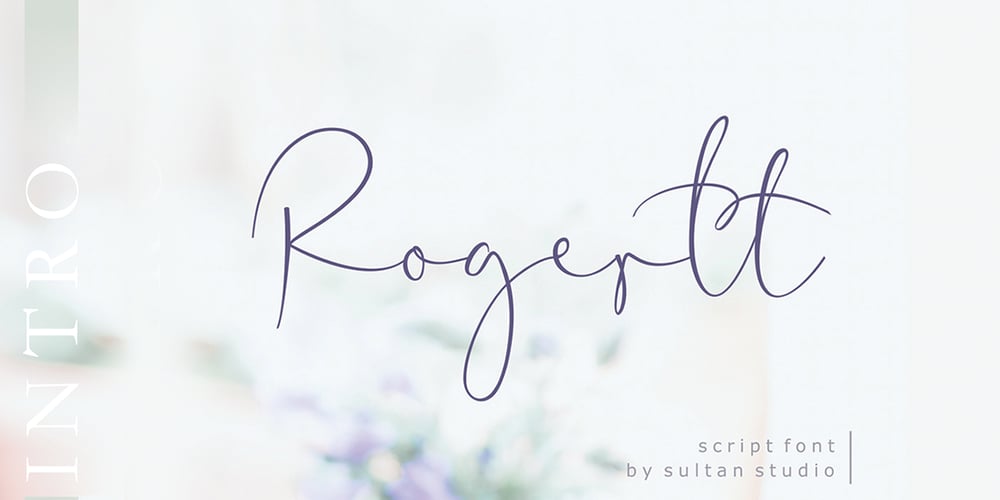
Rogertt Font Family was designed by Nasrullah and published by Sulthan Studio. Rogertt contains 1 styles and family package options. Hi true font connoisseurI introduced my second font Rogerttthis is a modern handwriting that is unique and cute … please try it is definitely fun and you will be happy.good luck..With a style like this, this font will be suitable in use for logo’s, branding projects, homeware designs, product packaging, mugs, quotes, posters, shopping bags, logo’s, t-shirts, book covers, name card, invitation cards, greeting cards, and all your other lovely projects.